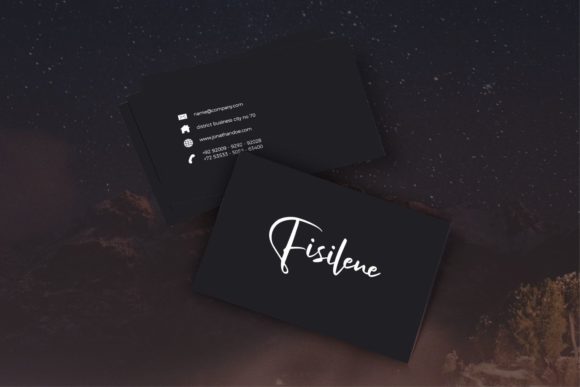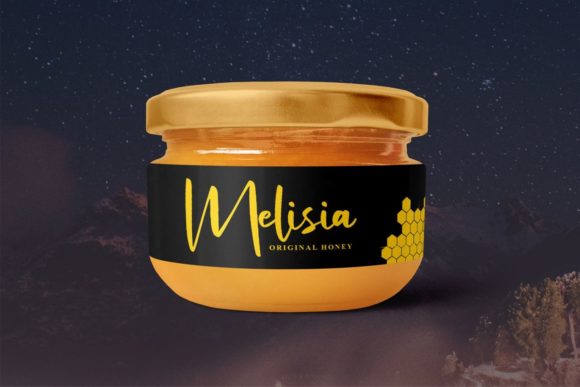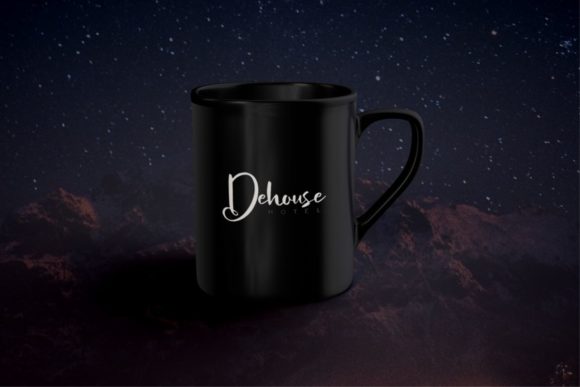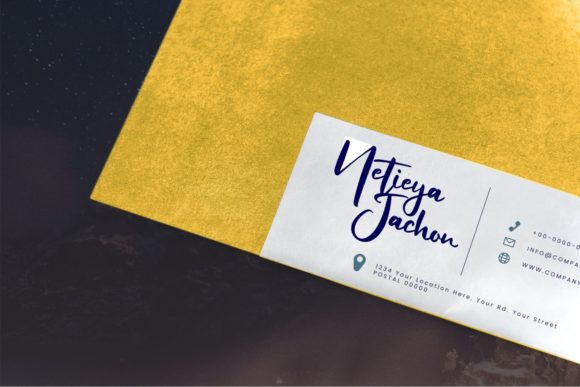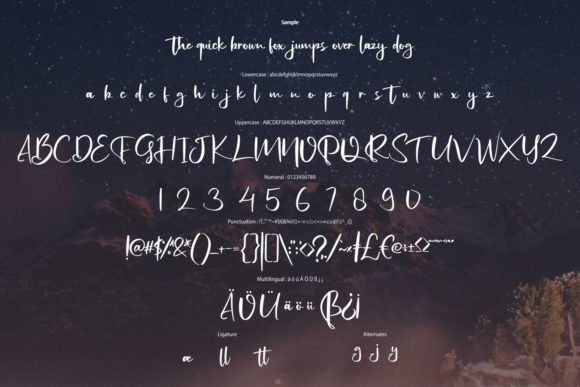
Introduction to Potretic Font
Potretic is a beautiful and refined paint brushed script font.
It has a classy, elegant and modern look that can be used for logos, branding, invitations, stationery, wedding designs, social media posts, and much more .
Potretic Font offers exceptional quality and versatility, making it a valuable addition to your design toolkit. Whether you’re creating for personal projects or commercial use, Potretic Font delivers professional results.